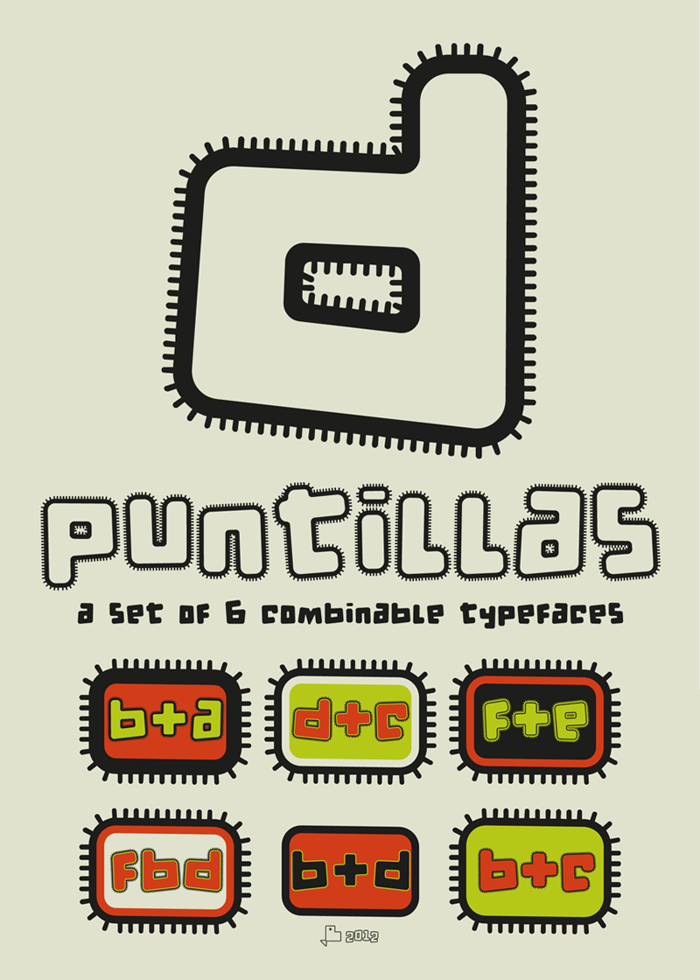
d puntillas Font
d puntillas [b] to tiptoe Style
d puntillas [d] to tiptoe Style
d puntillas [e] tiptoes squid Style
d puntillas, a set of 6 combinable fonts, summer style and fun to design logos or typographical posters.